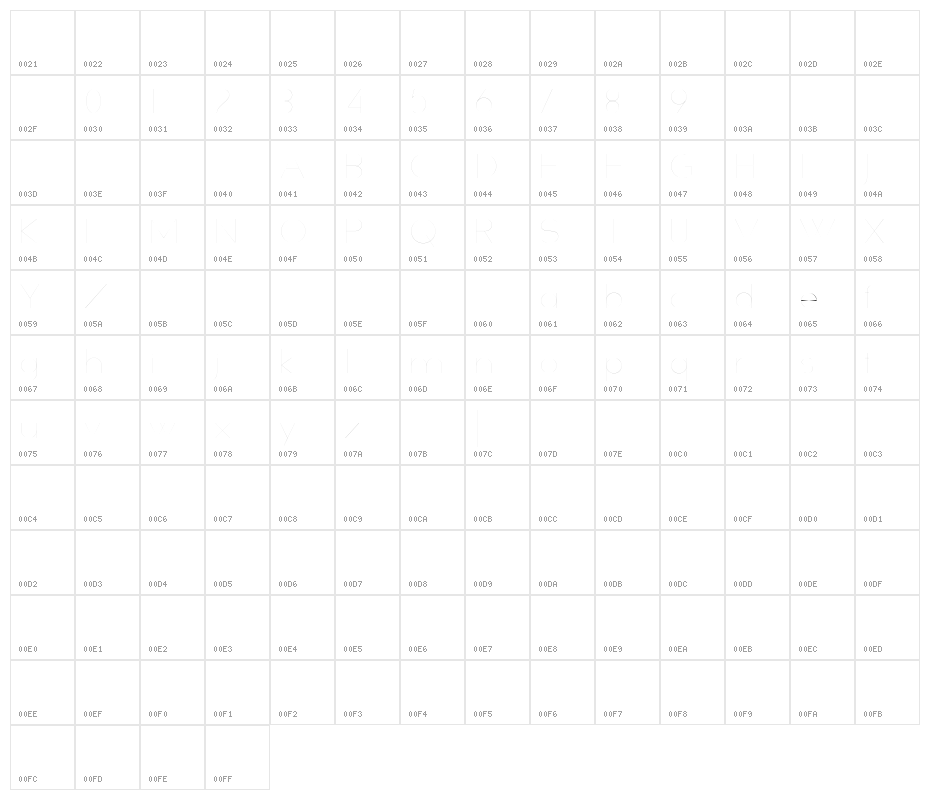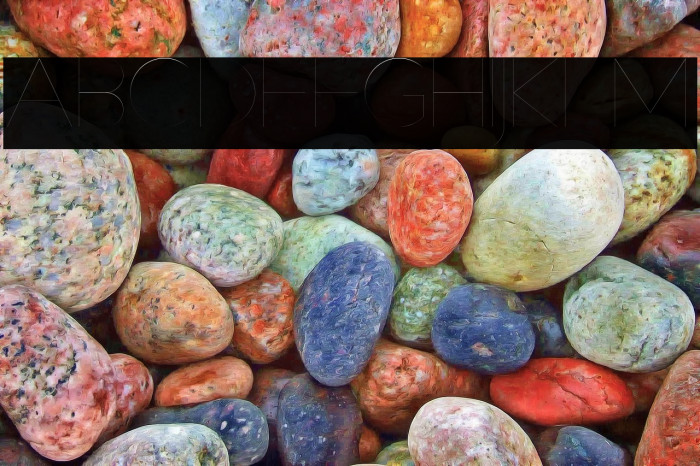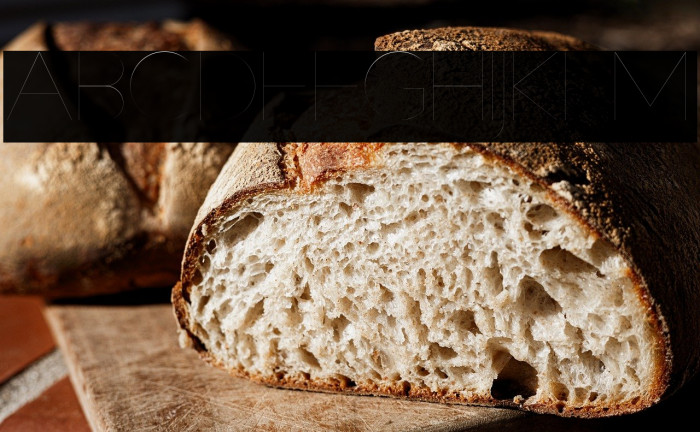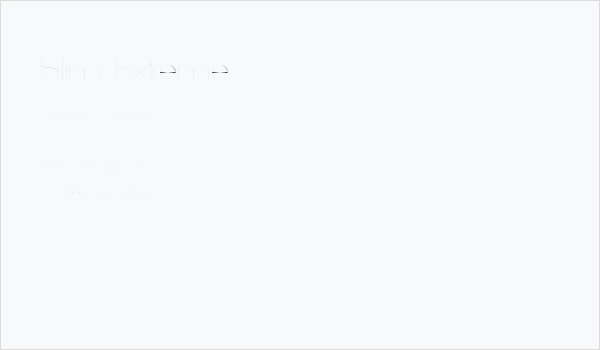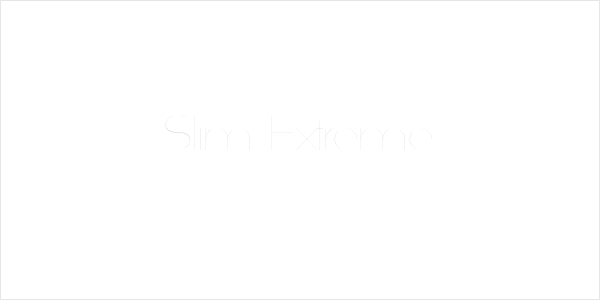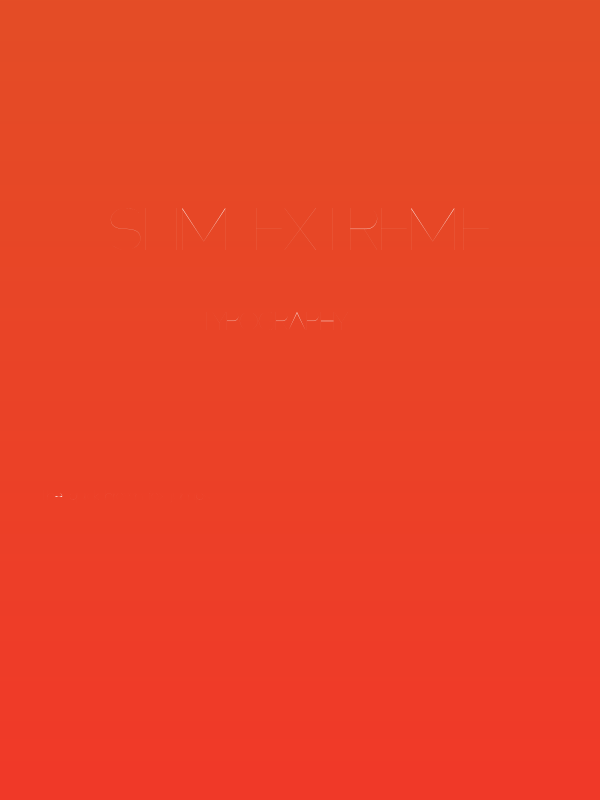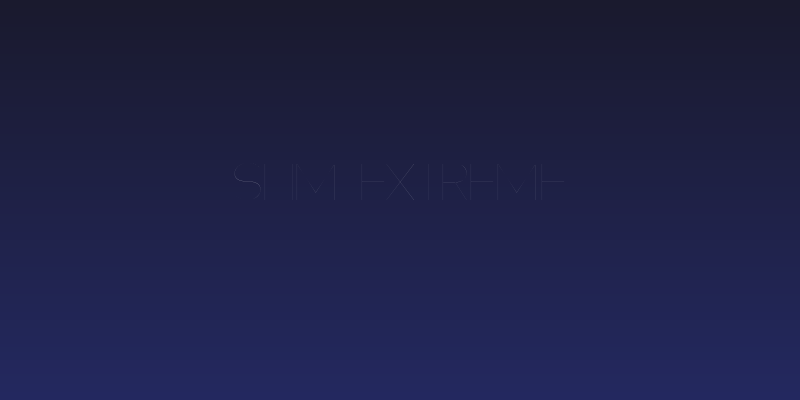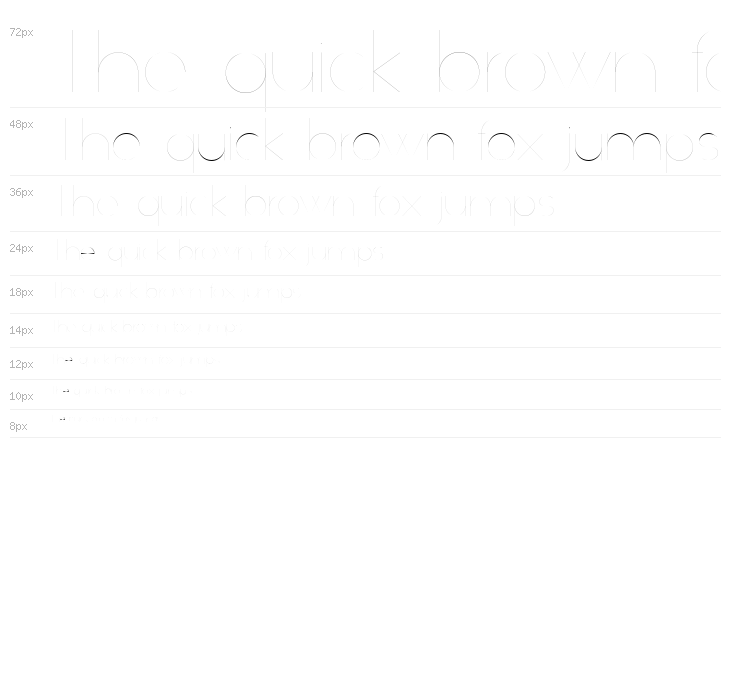
Slim Extreme Font
Slim Extreme Description
This font is characterized by its ultra-thin, elegant lines and minimalist design. The characters are crafted with precision, featuring a modern and sleek appearance. The uppercase and lowercase letters maintain a consistent height, contributing to a uniform look. The numerals and special characters are designed with the same thin strokes, ensuring a cohesive style throughout. The font's airy and open feel makes it suitable for projects that require a contemporary and sophisticated touch.